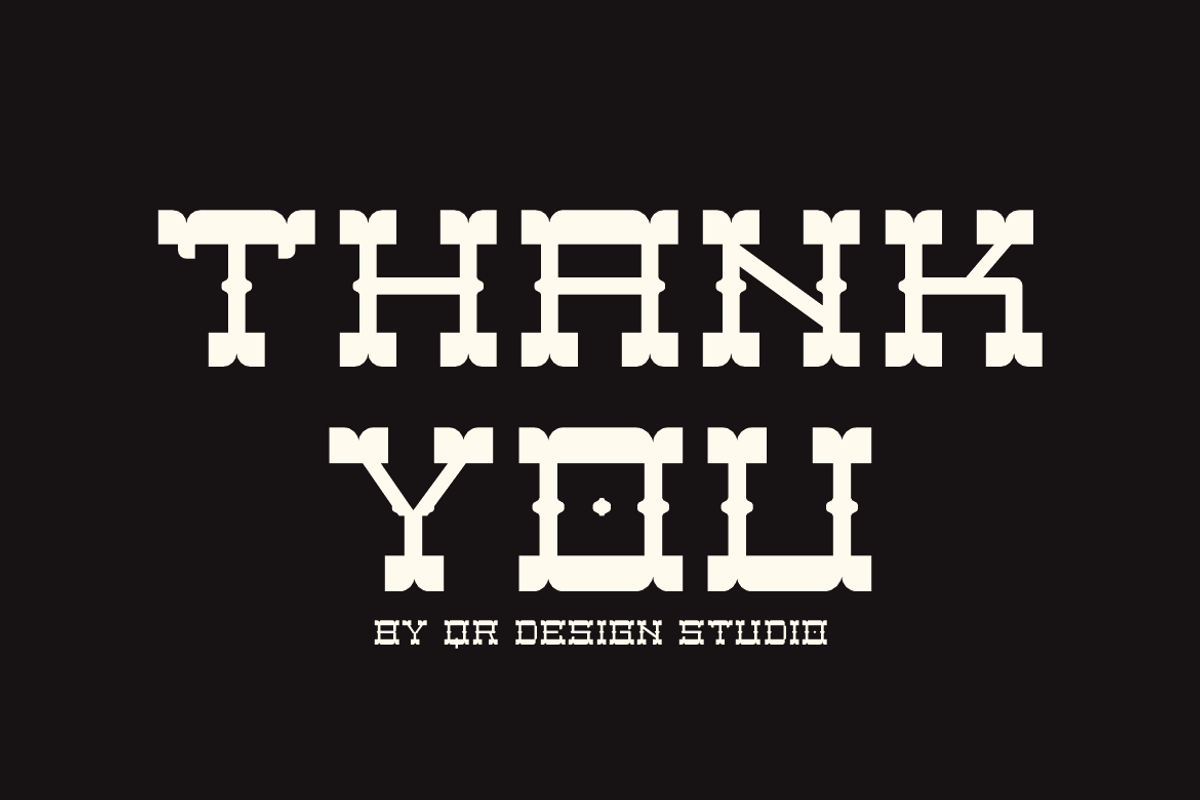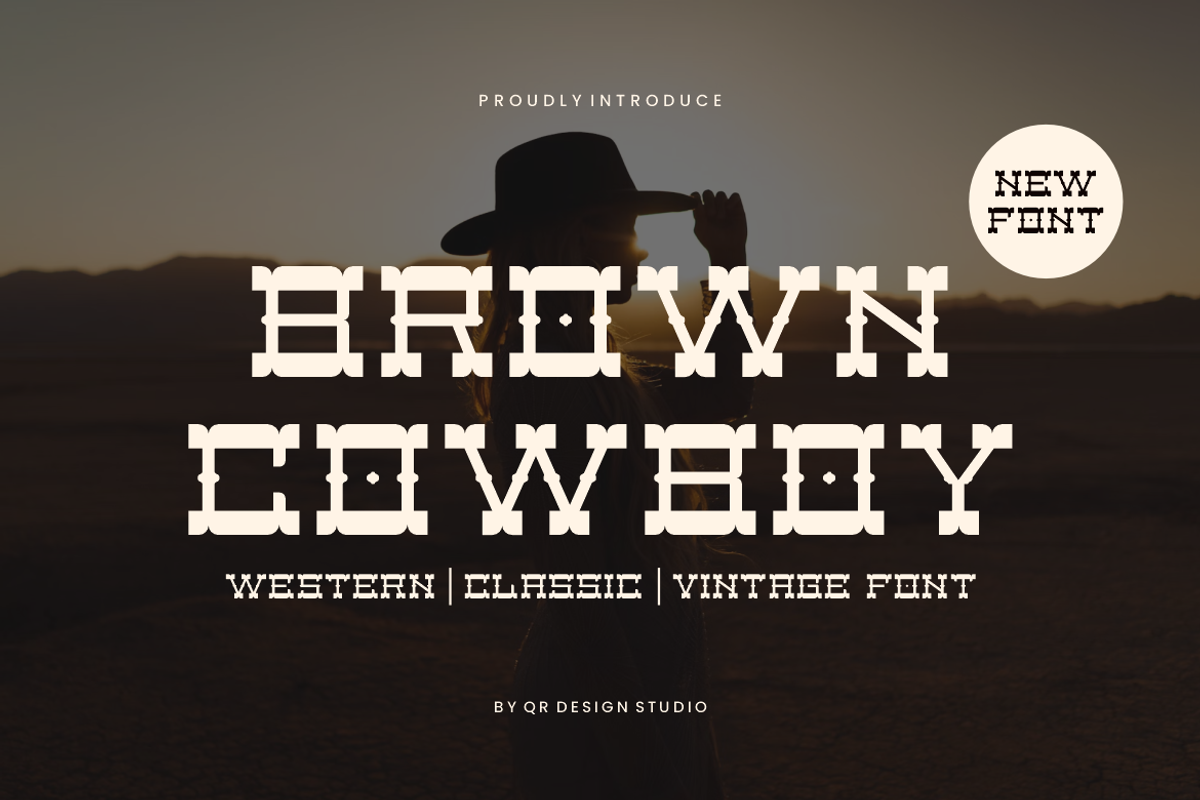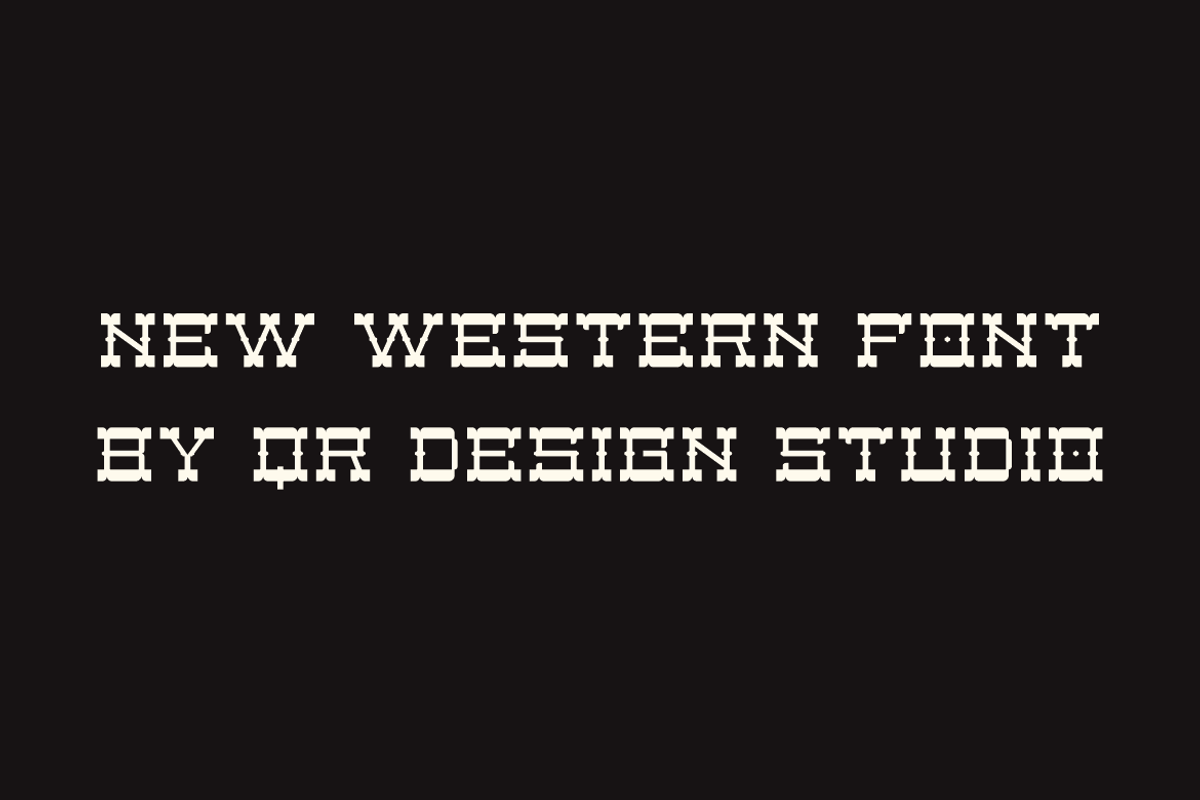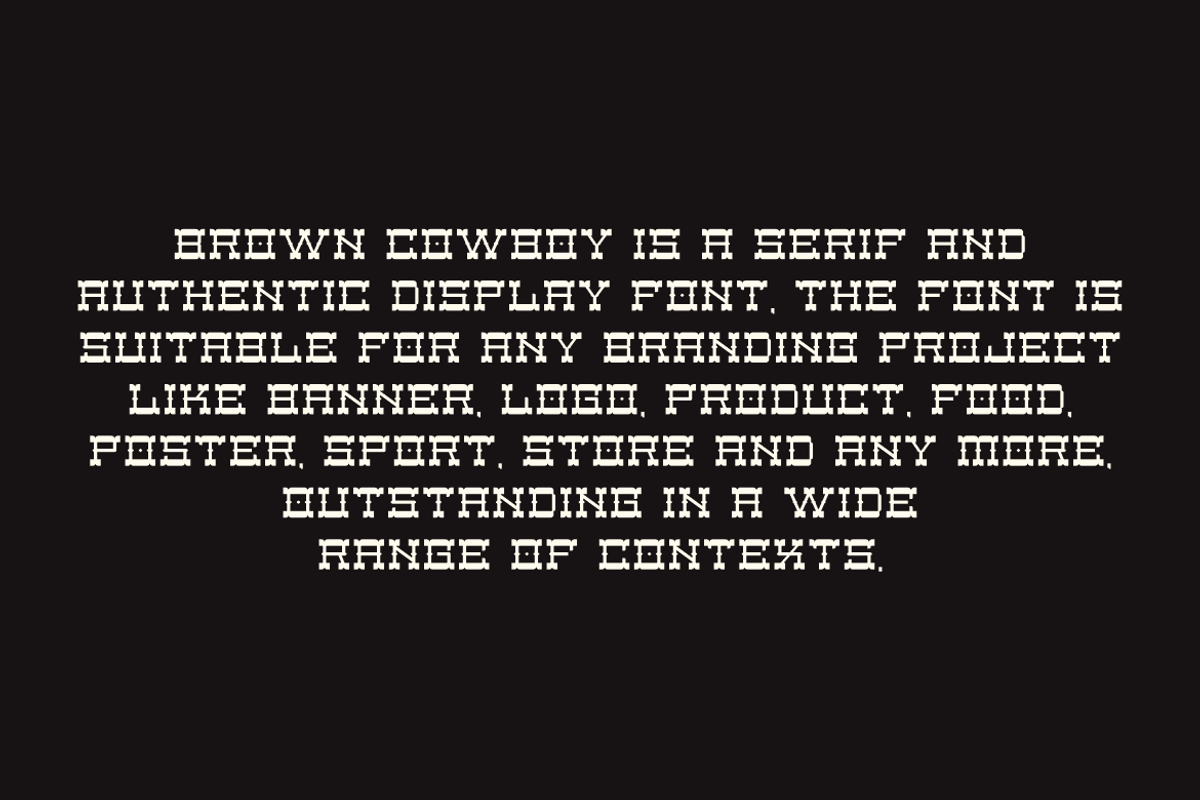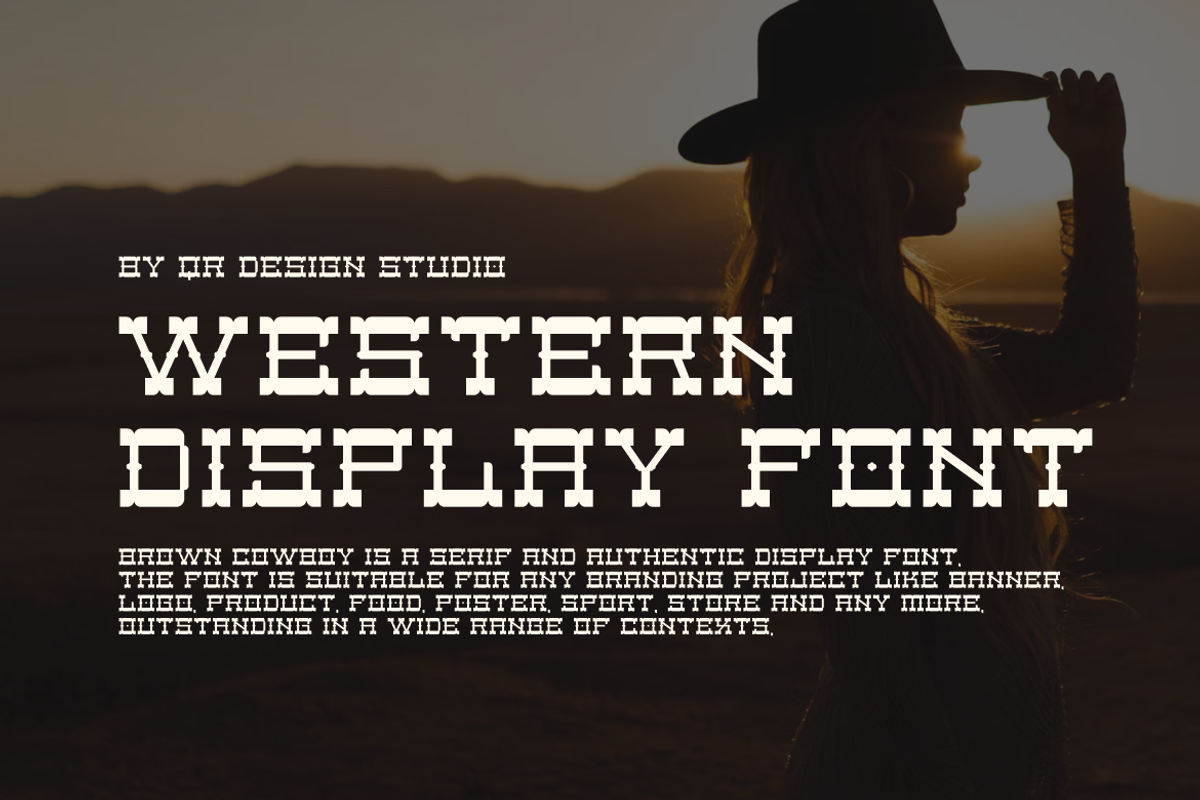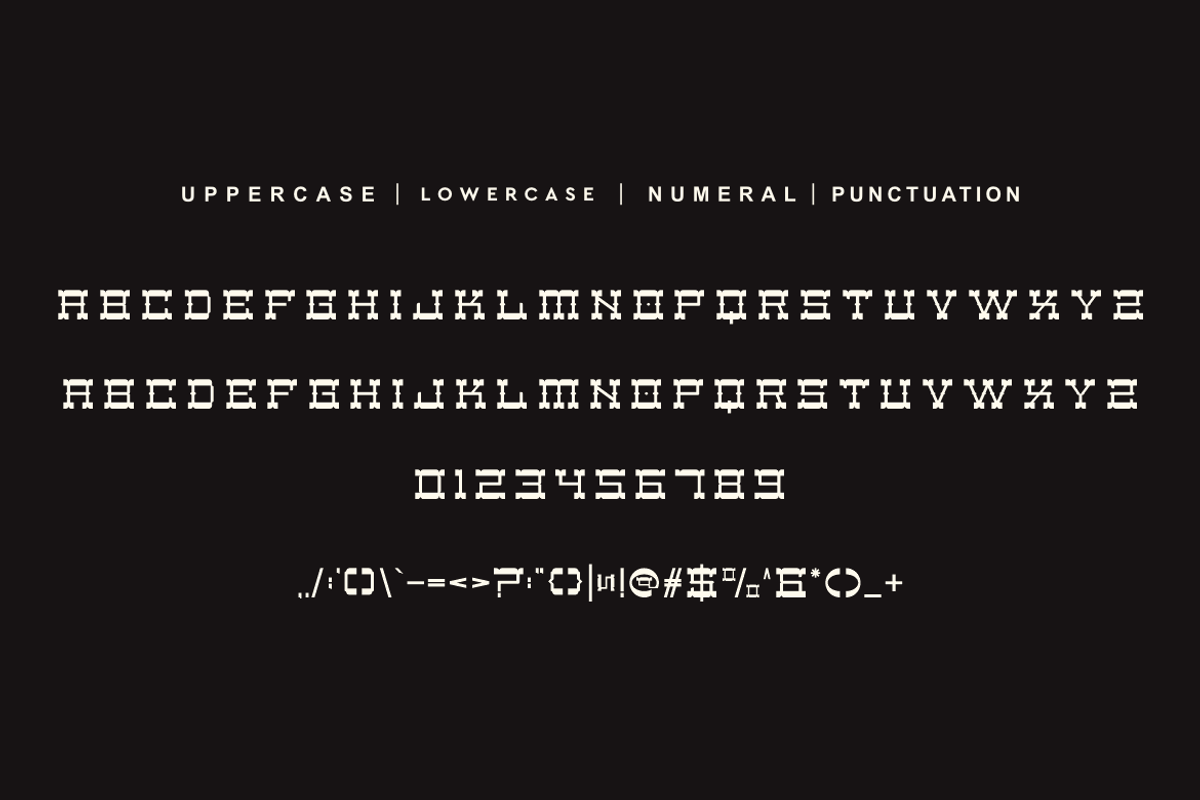
Brown Cowboy Artdeco & Western Font
Brown Cowboy - Artdeco & Western Font is a decorative and authentic display font. The font is suitable for any branding project like poster, logo, sport, and many more. Outstanding in a wide range of contexts.